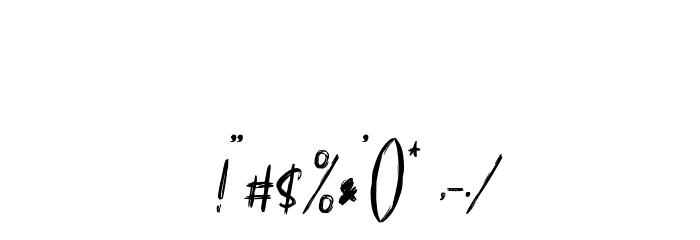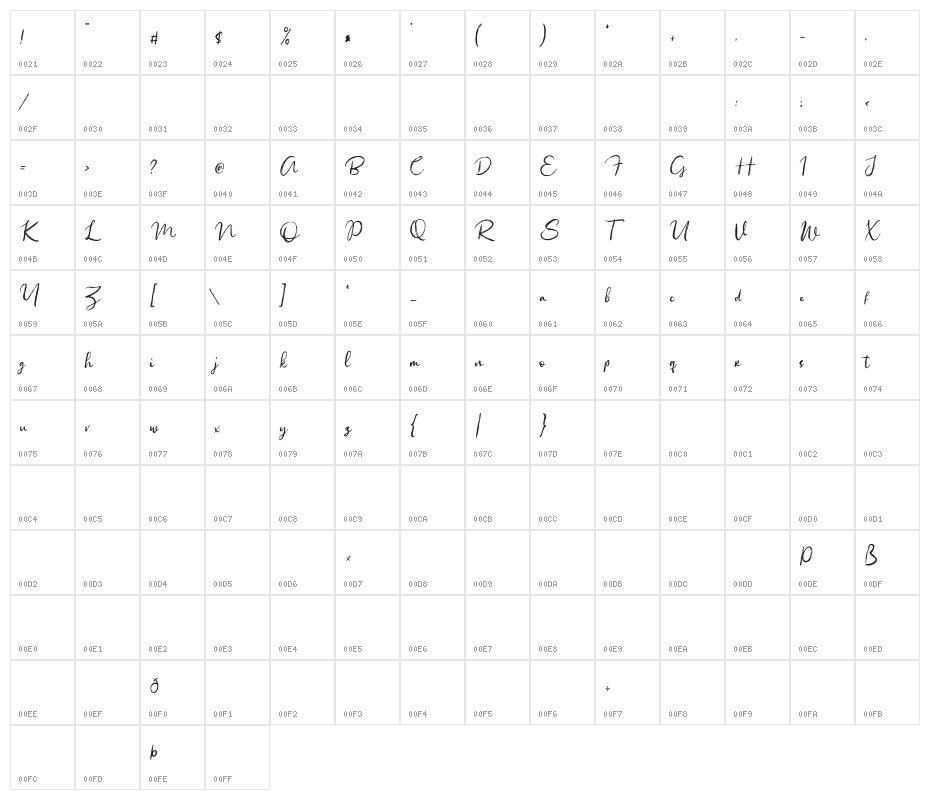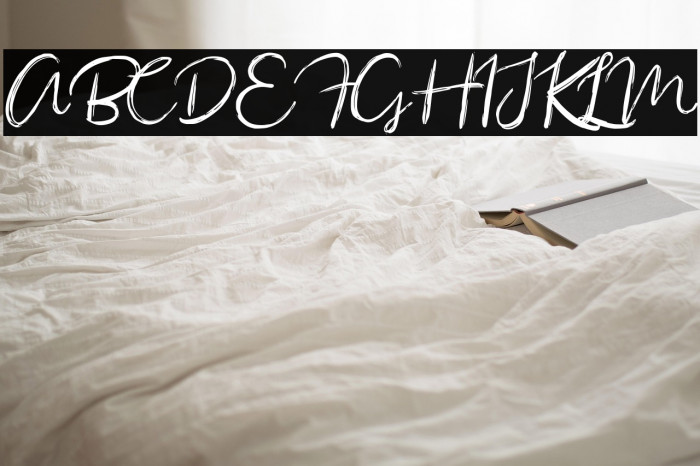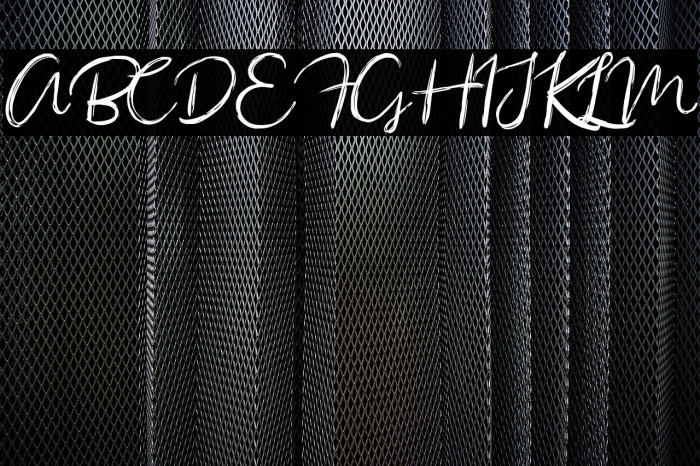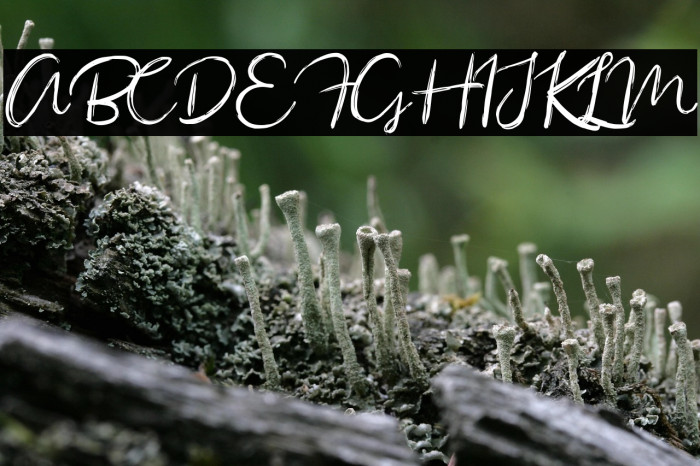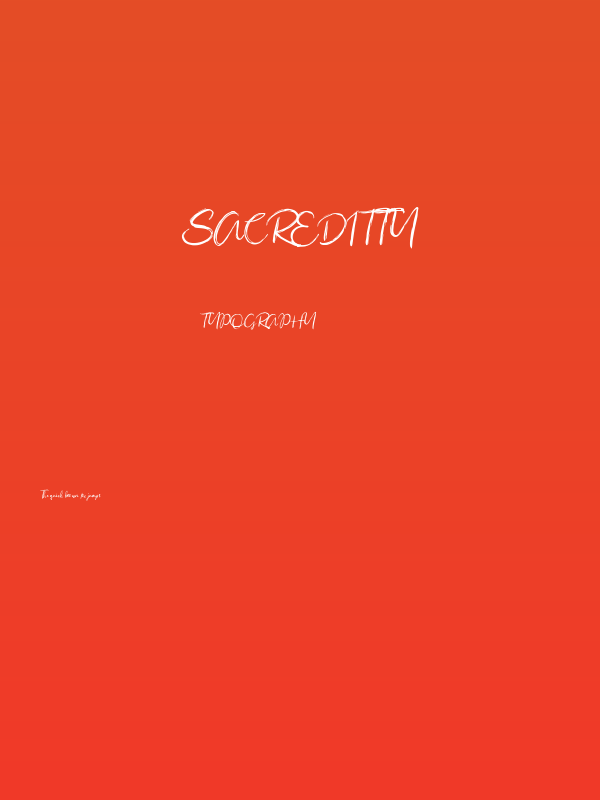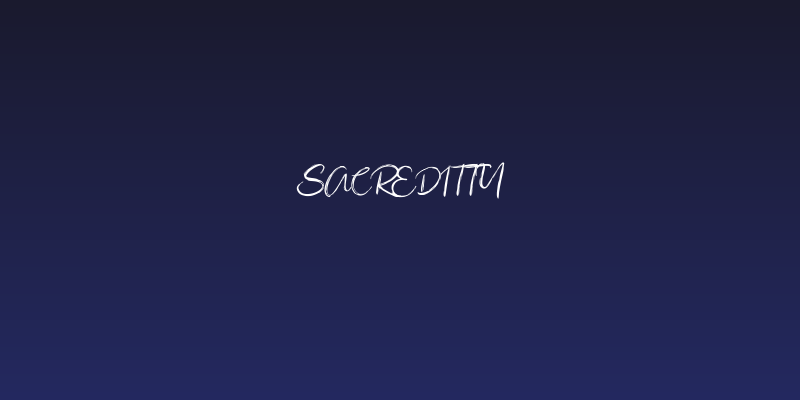
Sacreditty Font
Sacreditty Description
This font features an elegant, flowing script style that mimics the fluidity of natural handwriting. The uppercase letters are characterized by sweeping curves and loops, giving them a dynamic and artistic appearance. The lowercase letters maintain a consistent style, with gentle curves and a slightly slanted orientation, enhancing the handwritten feel. The numerals and special characters are designed to match the overall aesthetic, with similar curves and flourishes. This font exudes a sense of sophistication and creativity, making it ideal for projects that require a personal touch.
| Overall Style | Elegant, Artistic |
| Proposed Projects | Ideal for wedding invitations, greeting cards, personal branding, and artistic projects. |